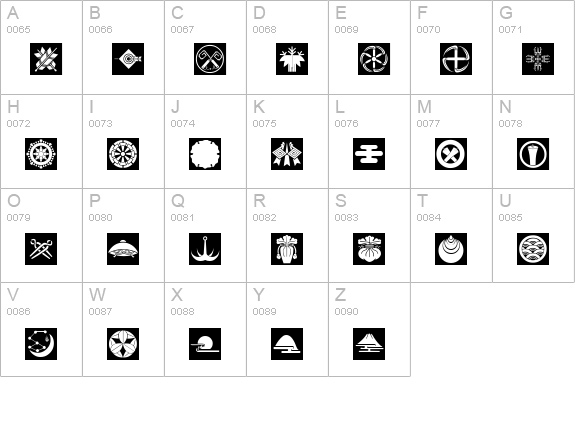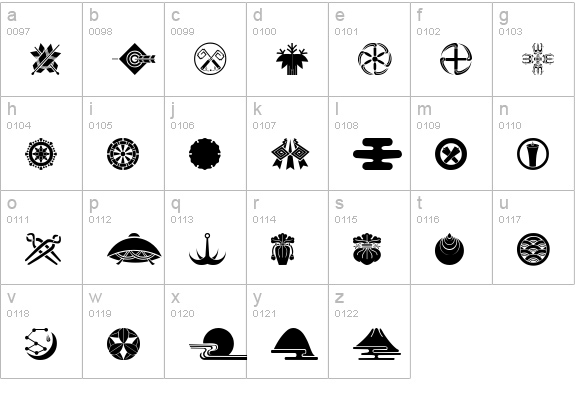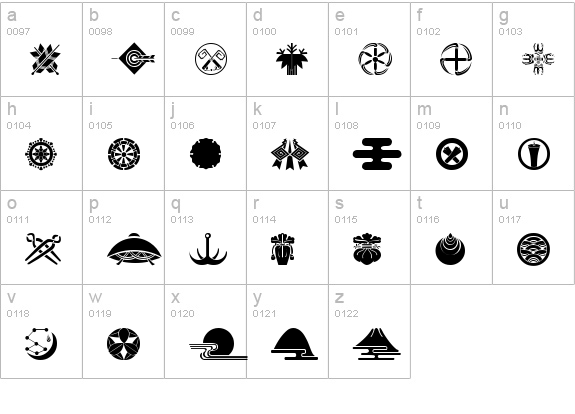
Oriental Icons III Font Details
Oriental Icons III font is a stunning collection of intricate and beautifully designed symbols and characters inspired by Eastern culture and aesthetics. This unique font offers a wide range of decorative icons that can add a touch of elegance and sophistication to any design project. From traditional motifs to modern interpretations, Oriental Icons III font provides a diverse selection of symbols that are perfect for creating eye-catching visuals. Best of all, Oriental Icons III font is available for free download at FontsMarket.com. This means that you can easily access this exquisite font and incorporate its intricate designs into your creative projects without any cost. Whether you're working on a branding, packaging, or web design project, Oriental Icons III font is the perfect choice for adding a touch of cultural flair and artistic flair. Download Oriental Icons III font today and elevate your designs with its captivating and ornate symbols.